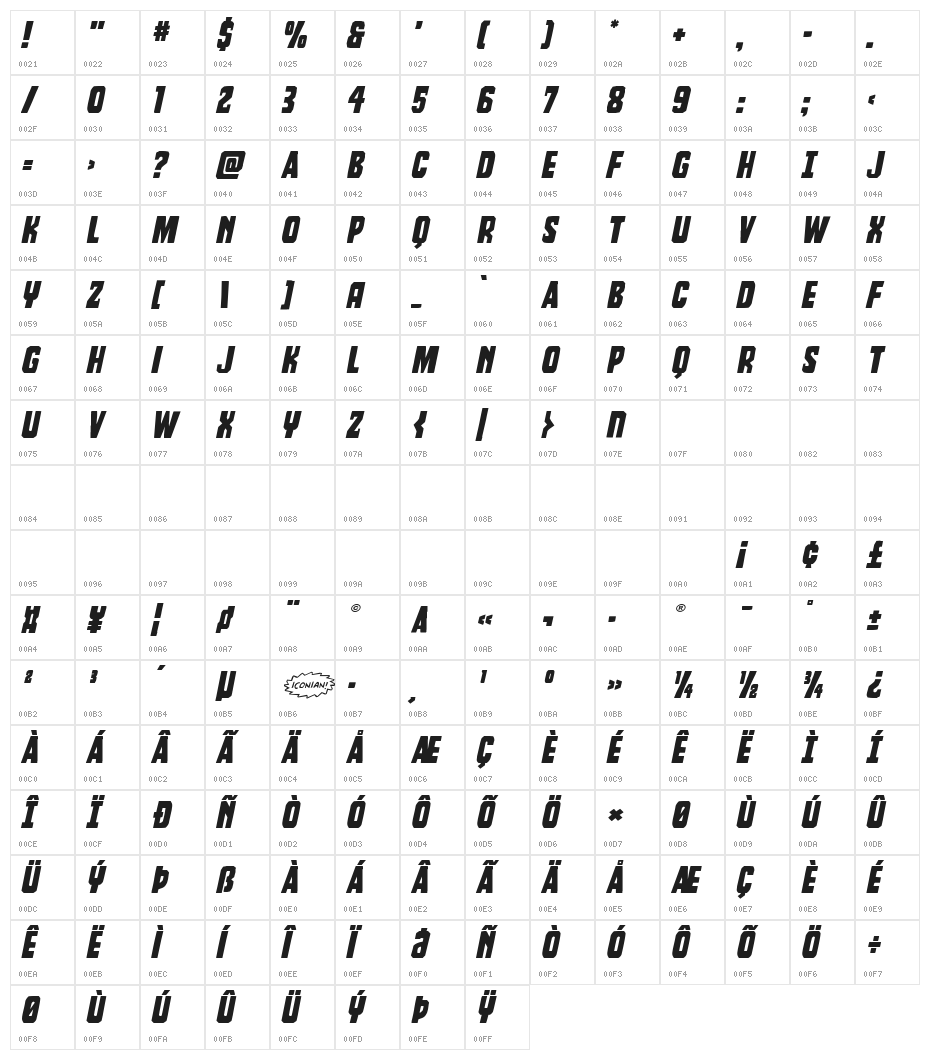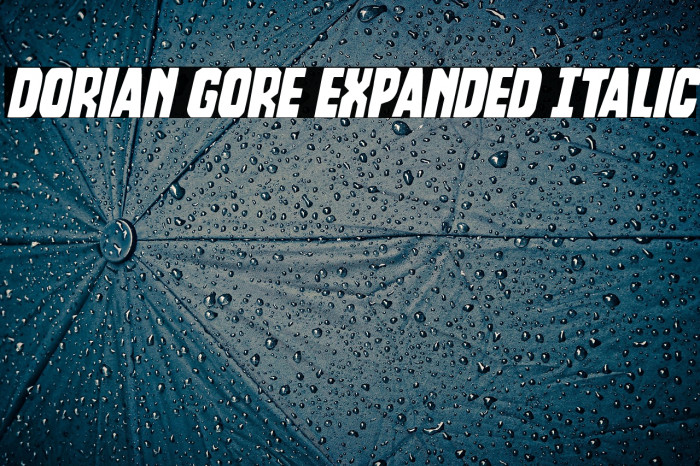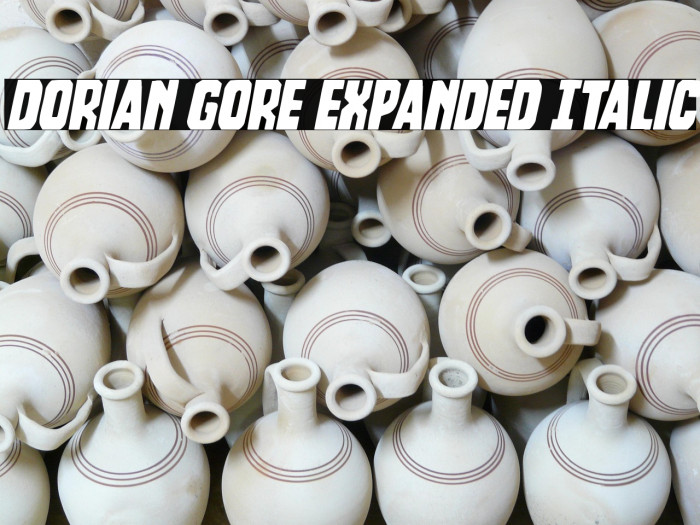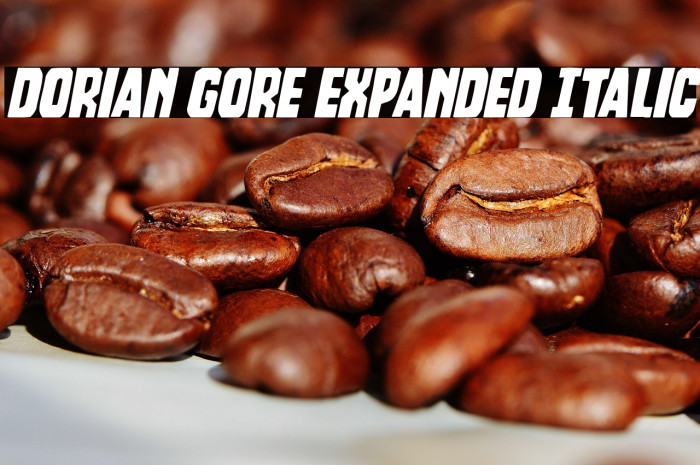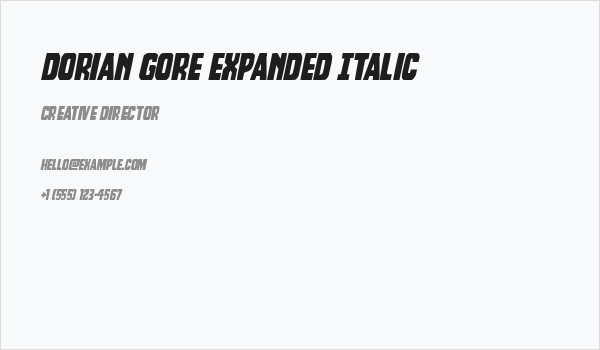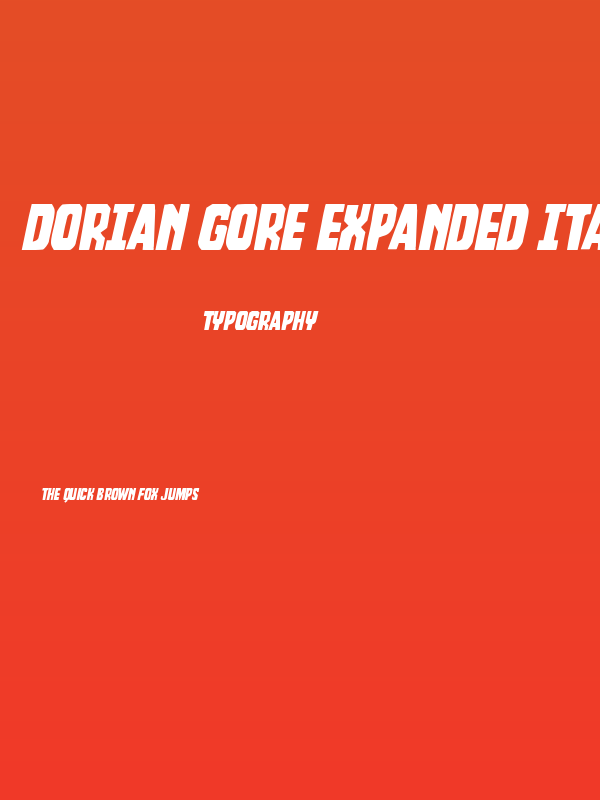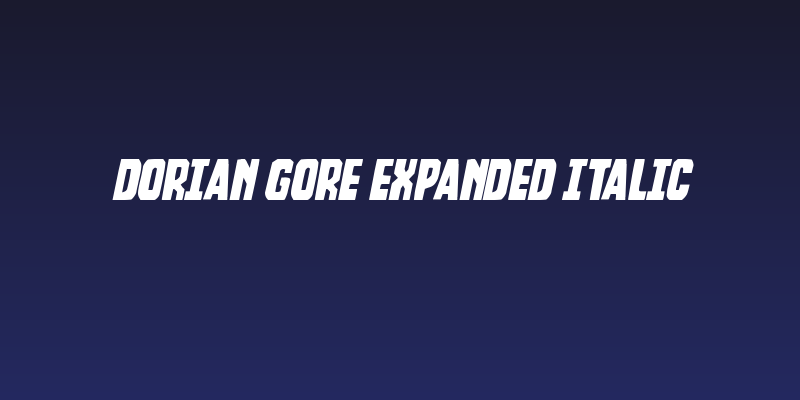
Dorian Gore Expanded Italic Font
Dorian Gore Expanded Italic Description
This font features a bold and dynamic style with an expanded width and italic slant, creating a sense of movement and energy. The characters are robust and impactful, making them ideal for attention-grabbing designs. The uppercase letters are particularly striking, with sharp angles and a strong presence. The numbers and special characters maintain the same boldness, ensuring consistency across all text elements. The overall design is modern and assertive, suitable for projects that require a strong visual impact.
| Proposed Projects | Ideal for headlines, posters, sports branding, and any design requiring a bold statement. |